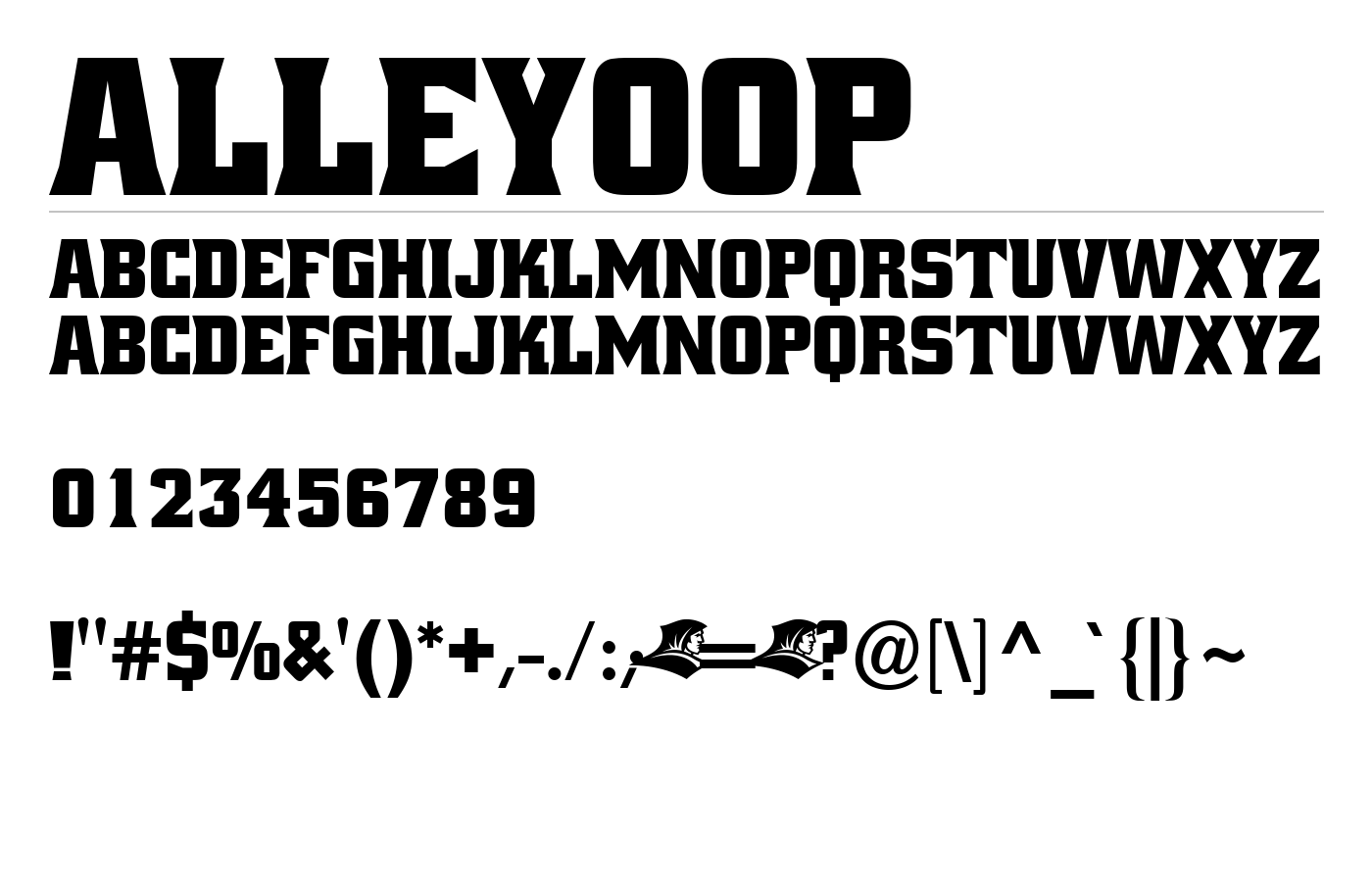
AlleyOop is a bold, condensed serif typeface with a strong, blocky presence that commands attention. Its high contrast and sharp, angular serifs give it a vintage yet assertive character, making it perfect for impactful headlines, sports branding, and dynamic logos. This font’s sturdy letterforms and distinctive details convey energy and strength, ideal for designs seeking a bold, confident statement.
AlleyOop Font
About AlleyOop Font